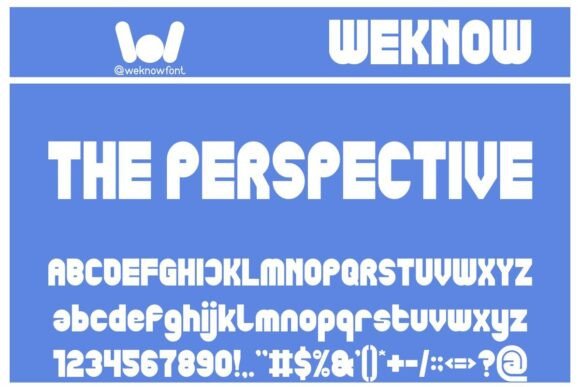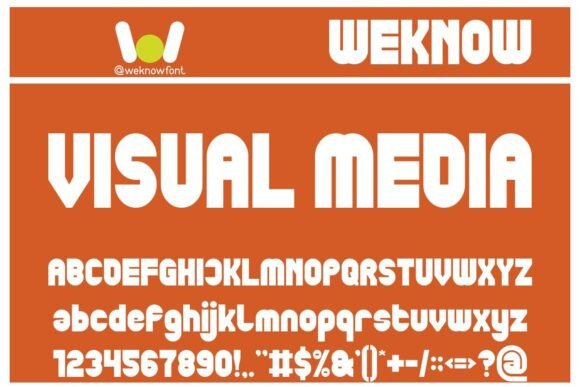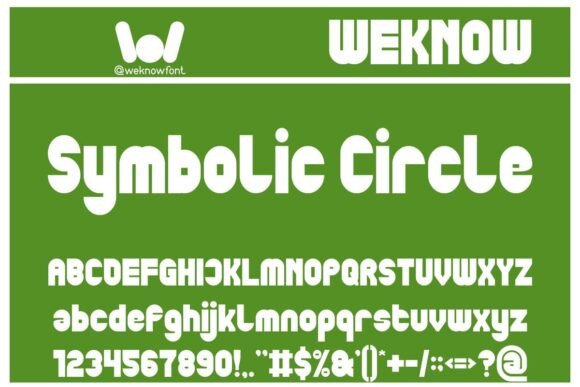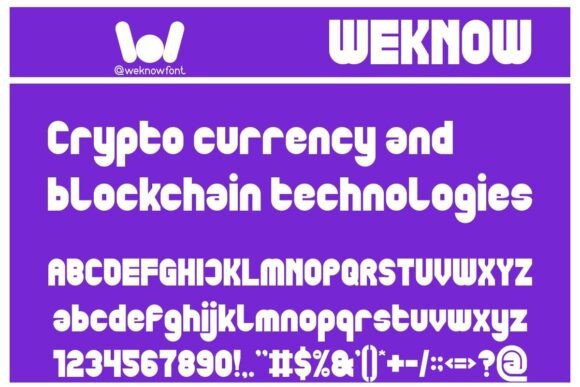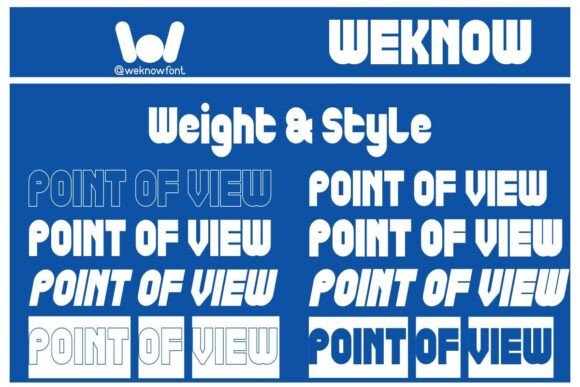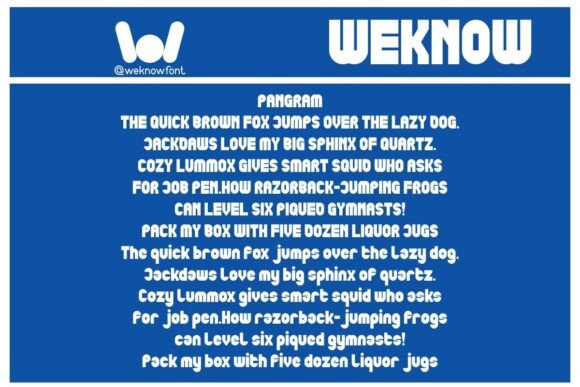
Introduction to Point of View Font
Introducing ‘Point of View’, an avant-garde font that embodies the future with its techno-sci-fi aesthetic.
With a bold, clean design built on strong, playful circles, it captures a truly contemporary essence Perfectly tailored for a broad spectrum of creative pursuits, whether adoring a cutting-edge corporate identity or a unique logotype, ‘Point of View’ is a standout choice.